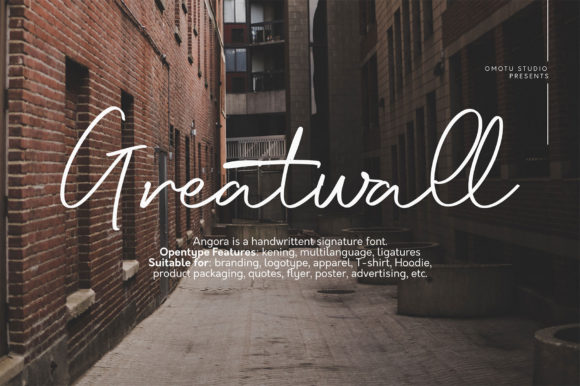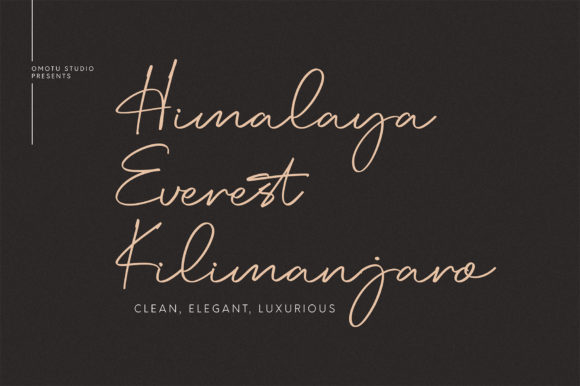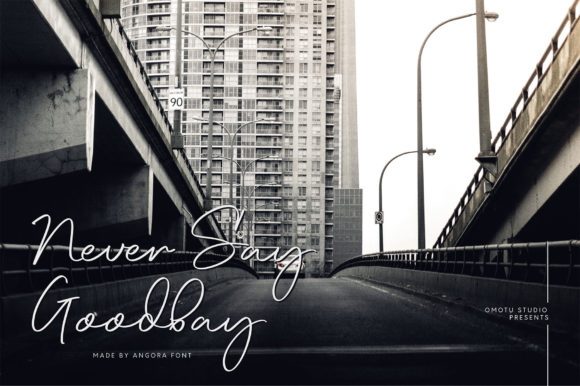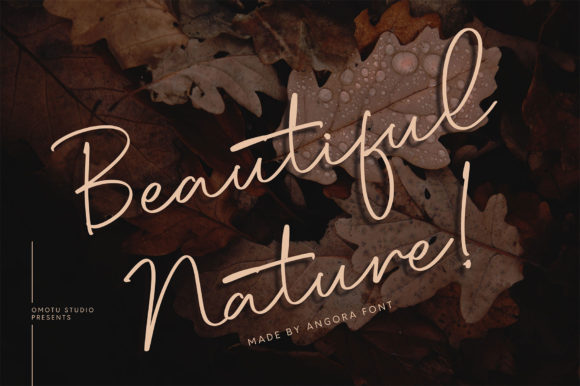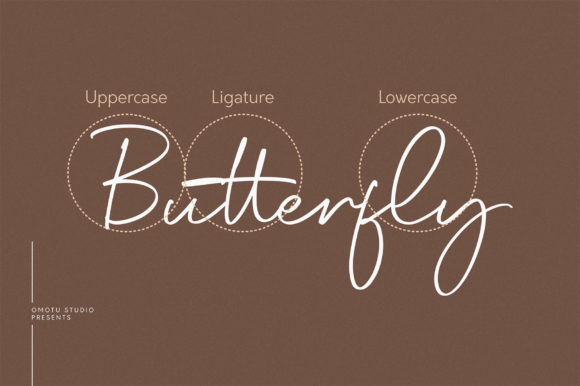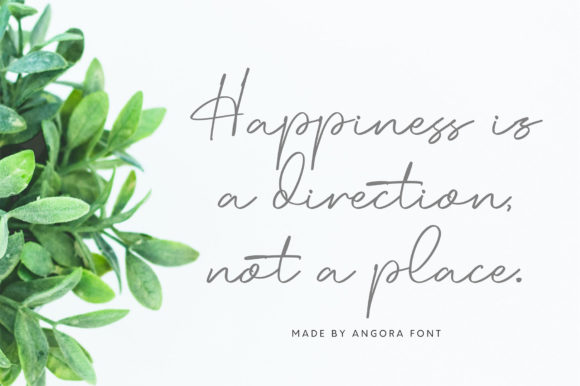
Introducing Angora Font: The Perfect Handwritten Signature Font for Your Creative Projects
Are you a designer, crafty entrepreneur, or DIY enthusiast looking for a unique and stylish font to elevate your brand, products, or marketing materials? Look no further than Angora Font, a beautiful handwritten signature font that’s perfect for a wide range of creative applications.
What is Angora Font?
Angora Font is a carefully crafted handwritten signature font that’s designed to add a touch of elegance, sophistication, and personality to your designs. With its flowing lines, delicate curves, and distinctive flair, this font is sure to make your brand or product stand out from the crowd.
What Can I Use Angora Font For?
Angora Font is incredibly versatile and can be used for a variety of creative projects, including:
- Branding: Establish a strong brand identity with Angora Font, perfect for logos, business cards, and letterheads.
- Logotype: Create a stunning logotype that showcases your brand’s personality and style.
- Apparel: Add a touch of elegance to your t-shirts, hoodies, and other apparel with Angora Font.
- Product Packaging: Make your products stand out with beautiful, custom packaging featuring Angora Font.
- Quotes: Create inspiring and stylish quotes for social media, posters, or flyers.
- Flyers and Posters: Grab attention with eye-catching flyers and posters featuring Angora Font.
- Advertising: Elevate your ad campaigns with a sophisticated and creative font that gets noticed.
Why Choose Angora Font?
So, what sets Angora Font apart from other fonts? Here are just a few reasons why designers and crafters love this font:
- Unique and Handwritten: Angora Font is a one-of-a-kind, handwritten font that adds a personal touch to your designs.
- Elegant and Sophisticated: With its flowing lines and delicate curves, Angora Font exudes elegance and sophistication.
- Versatile: Use Angora Font for a wide range of creative projects, from branding and logotype to apparel and product packaging.
- Easy to Read: Despite its elegant and cursive nature, Angora Font is surprisingly easy to read, making it perfect for body text and quotes.
Tips for Using Angora Font
To get the most out of Angora Font, here are a few tips to keep in mind:
- Use it sparingly: Angora Font is a statement font, so use it sparingly to make a big impact.
- Pair it with contrasting fonts: Combine Angora Font with contrasting fonts to create visual interest and hierarchy.
- Experiment with colors: Angora Font looks stunning in a range of colors, from bold and bright to soft and pastel.
| Font Name | Angora Font |
| Author | Omotu |
Angora Font is a beautiful, handwritten signature font that’s perfect for designers, crafters, and DIY enthusiasts looking to add a touch of elegance and sophistication to their creative projects. With its versatility, unique style, and ease of use, Angora Font is sure to become a go-to font in your design arsenal. So why wait? Download Angora Font today and start creating stunning designs that stand out from the crowd!